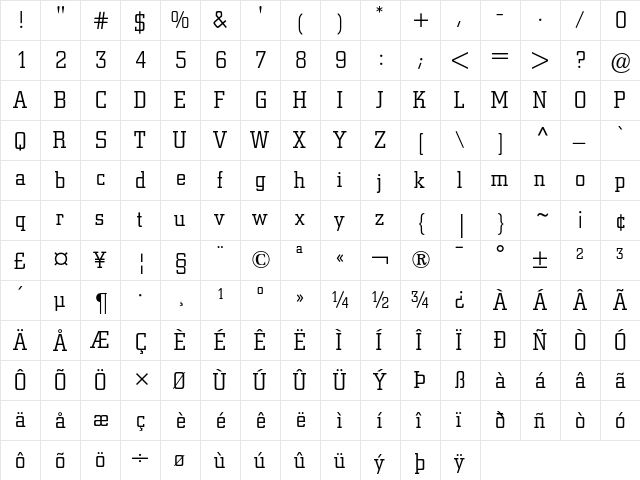
Berthold City Light
Design Context for Berthold City Typeface
Berthold City is a composed and adaptable typeface that performs quietly and consistently across a wide range of design contexts. The delicate stroke weight brings airiness and refinement to layouts.
Pro Tip: Pair Berthold City with a font of contrasting weight or personality to build a more expressive typographic hierarchy.